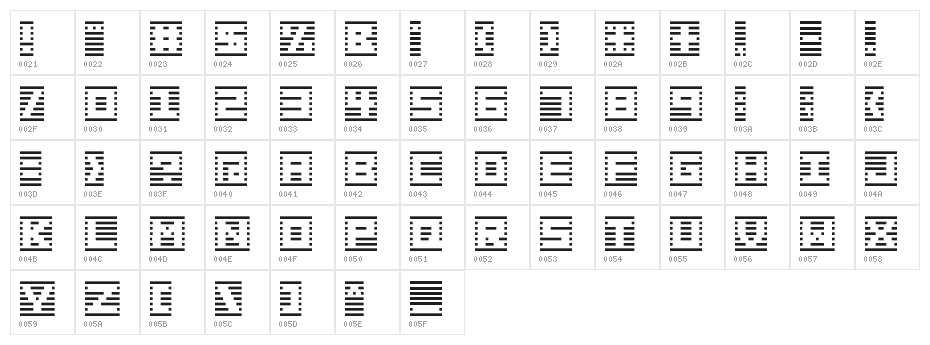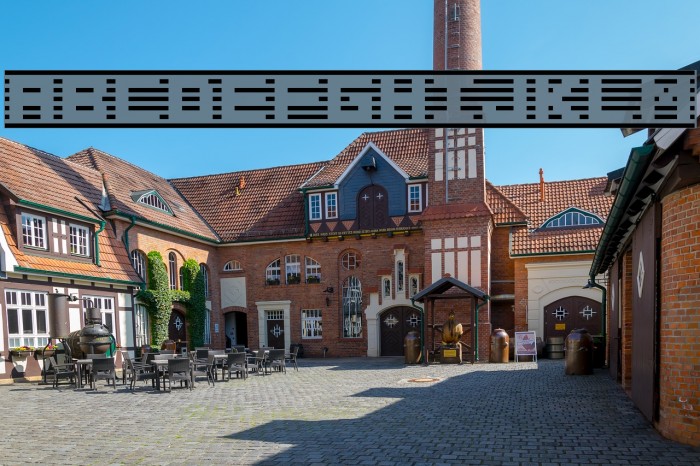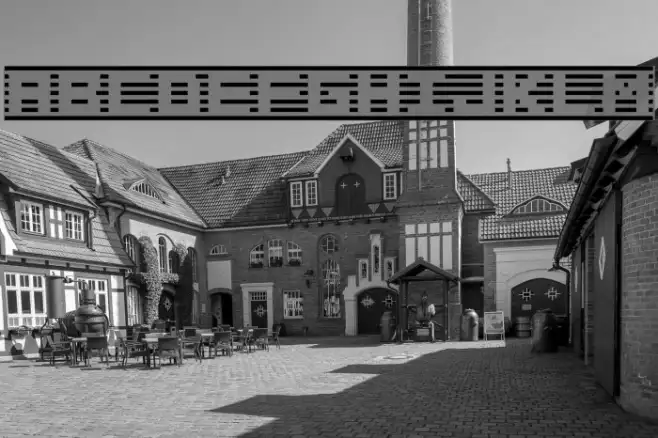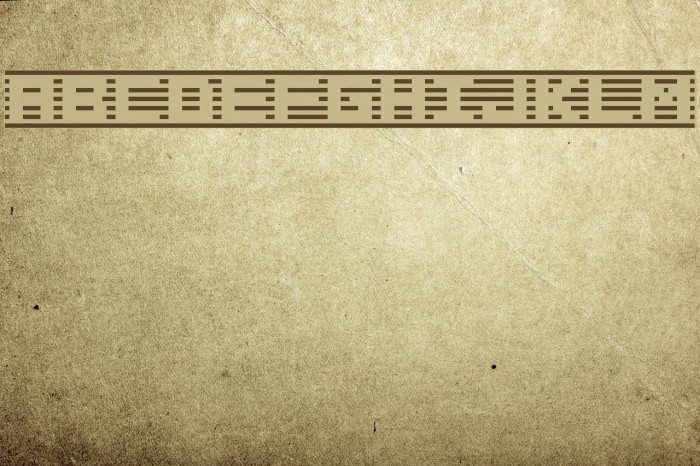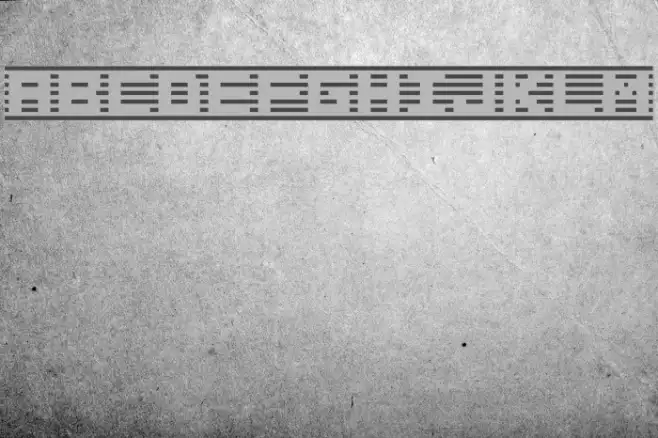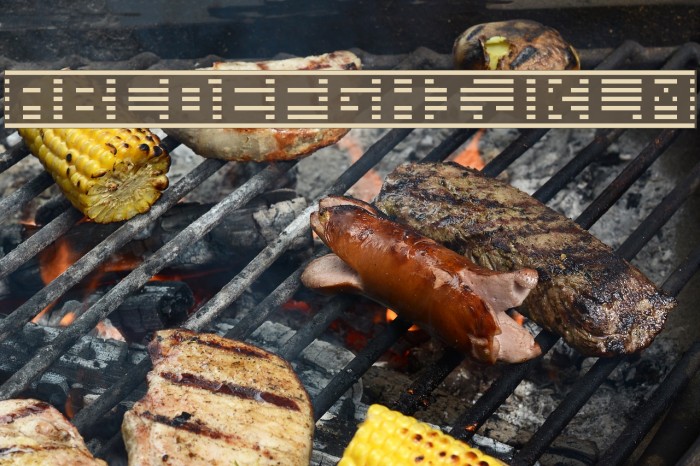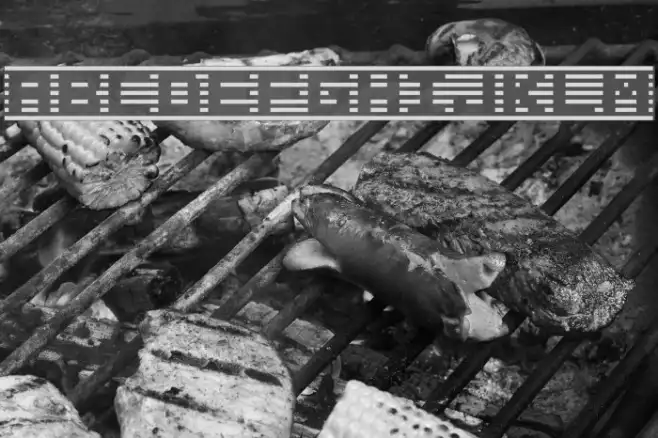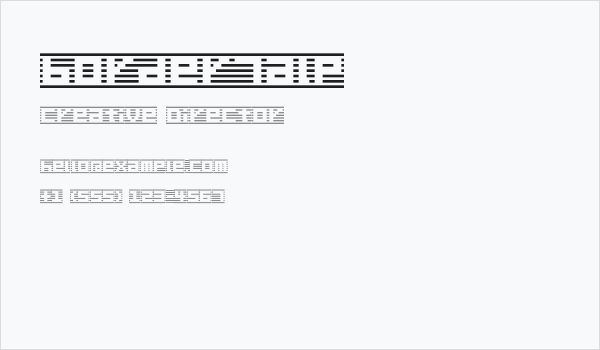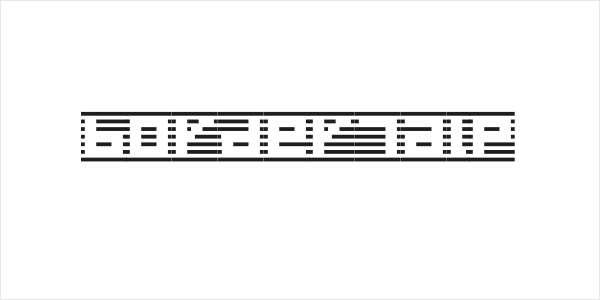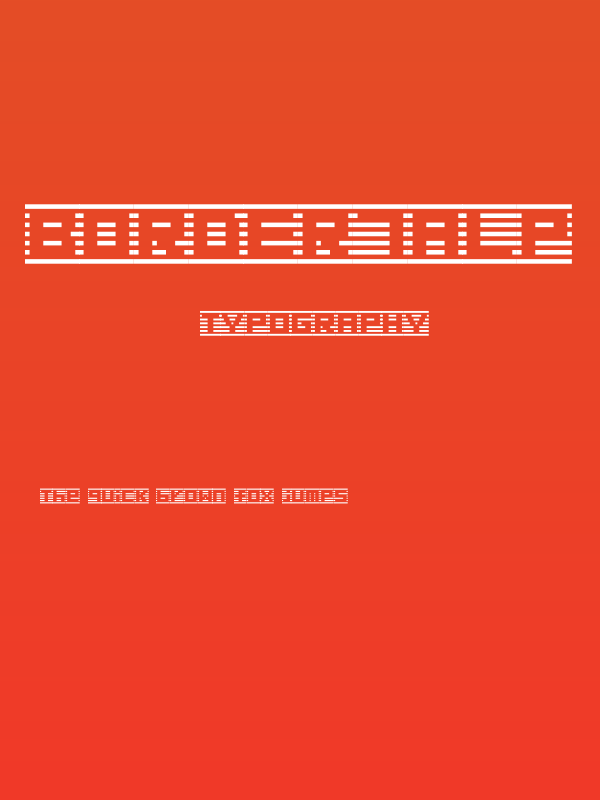
border7alp Font
border7alp Description
This font features a unique, digital-inspired design with a pixelated, grid-like appearance. Each character is constructed using a series of horizontal and vertical lines, creating a distinct, futuristic look. The font is highly geometric, with consistent line thickness and spacing, giving it a structured and uniform feel. The characters are easily recognizable, yet they maintain an abstract quality due to the segmented line style. This font is ideal for projects that aim to convey a sense of technology, modernity, or digital aesthetics.
| Use Case | Logos, Headlines, Digital interfaces |
| Proposed Projects | Ideal for digital art, tech branding, video game interfaces, and futuristic-themed designs. |